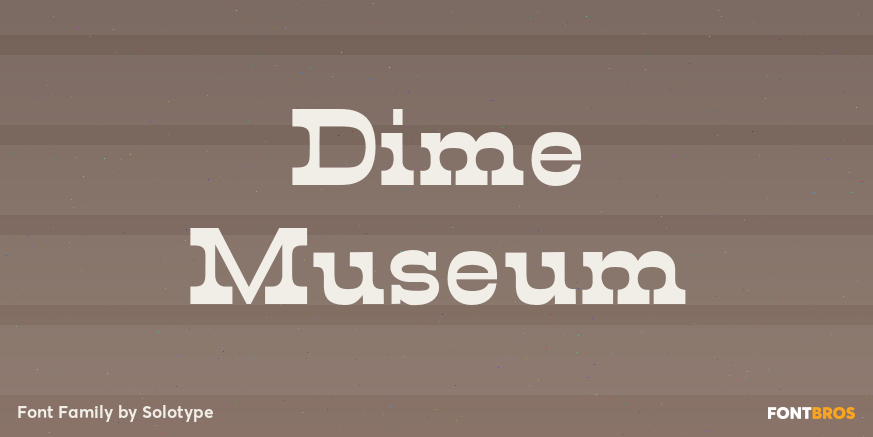
Dime Museum
About Dime Museum
This idea of ?wrong way weights? was originally called French Clarendon by the Americans, Italienne by the French, and American by the Italians. Sounds like nobody wanted to own up to it. When it was revived by ATF in 1933, it was given the name P. T.…